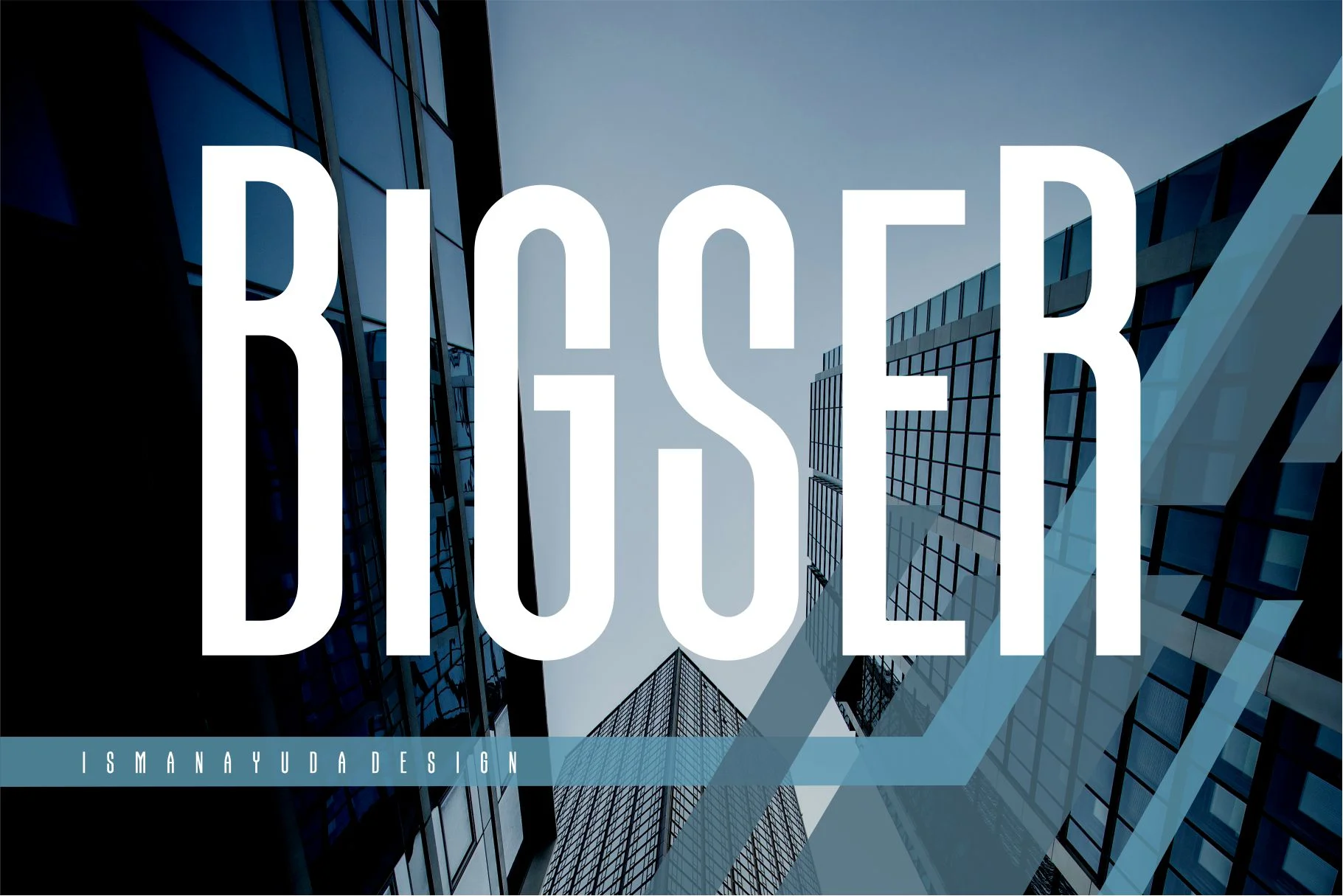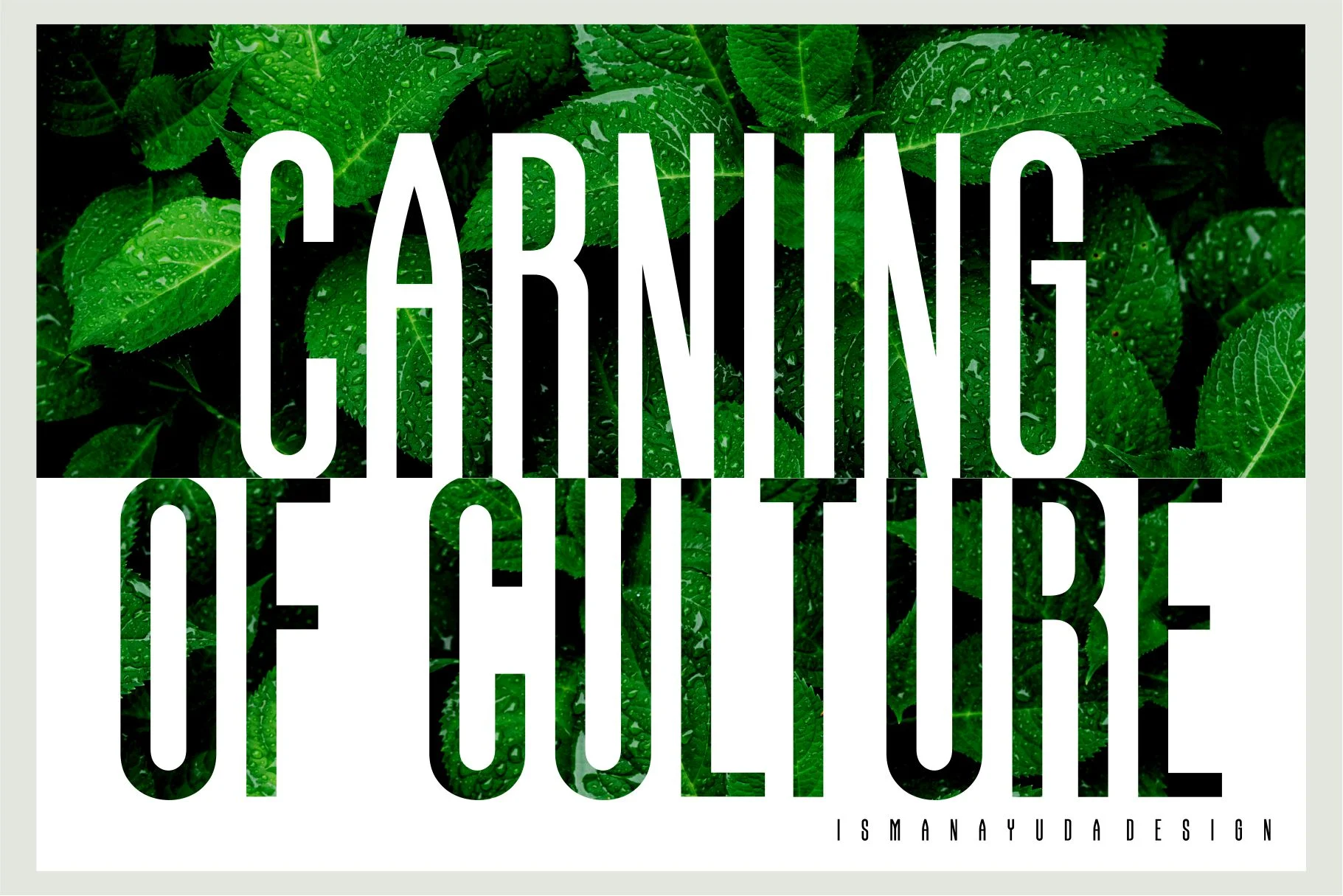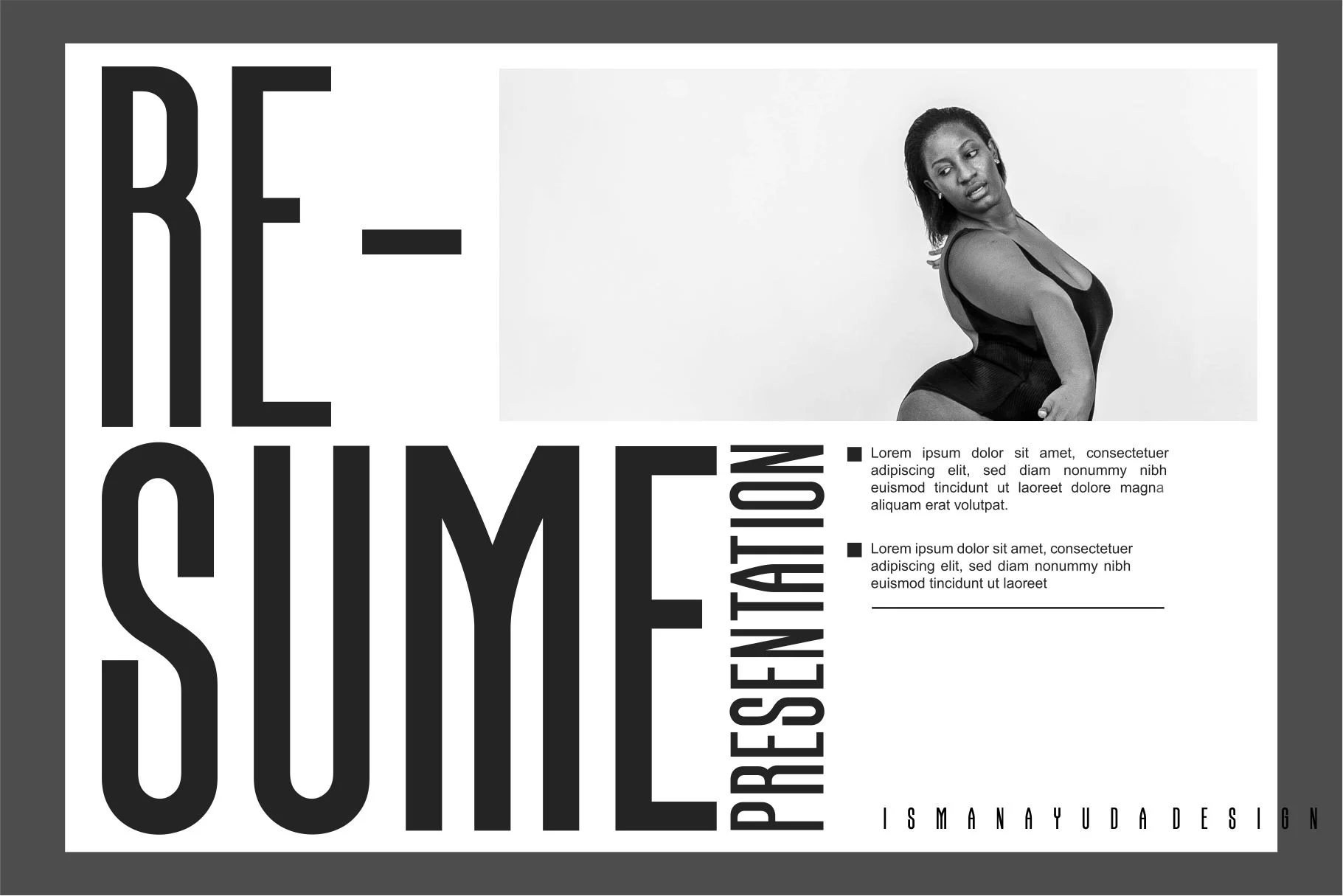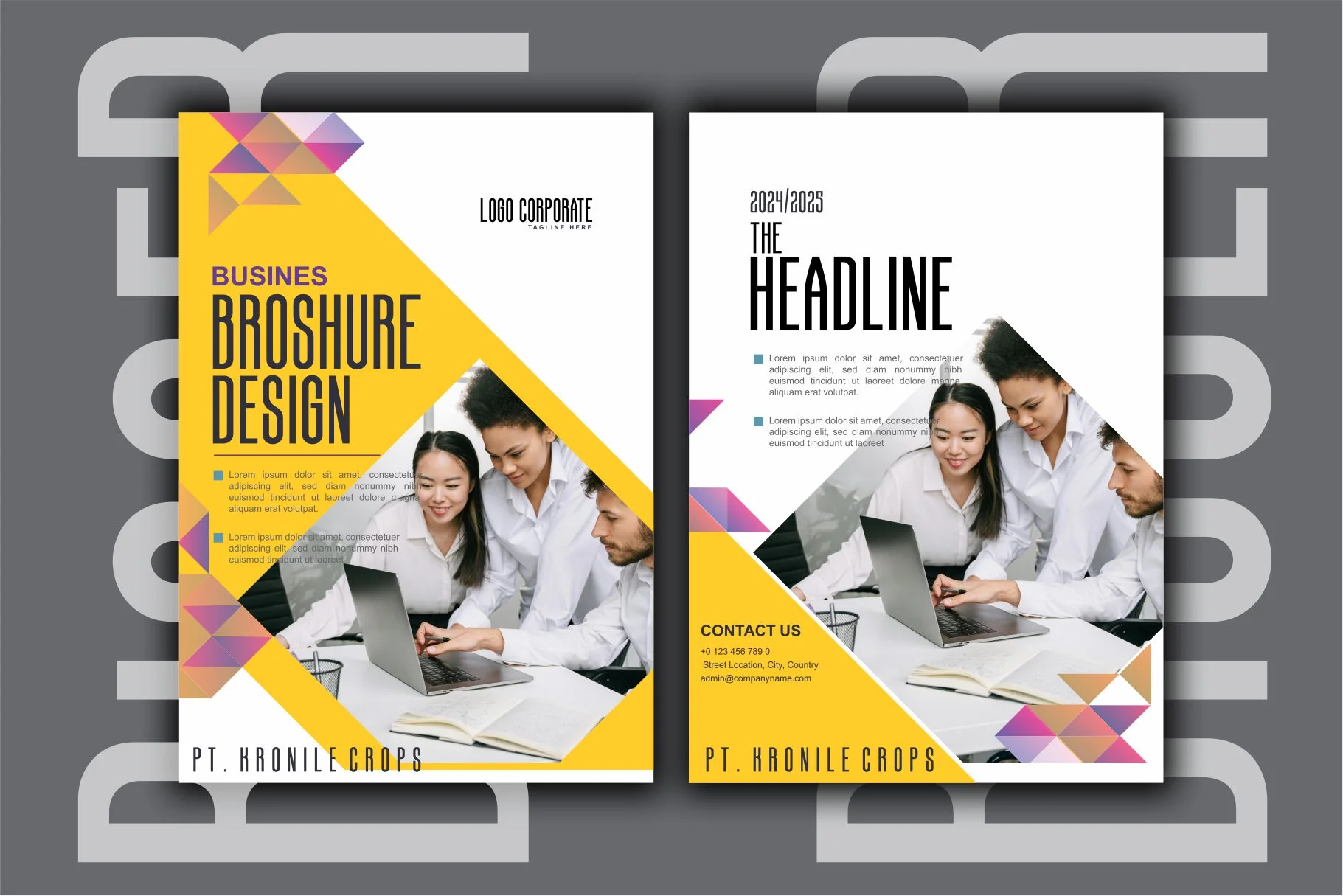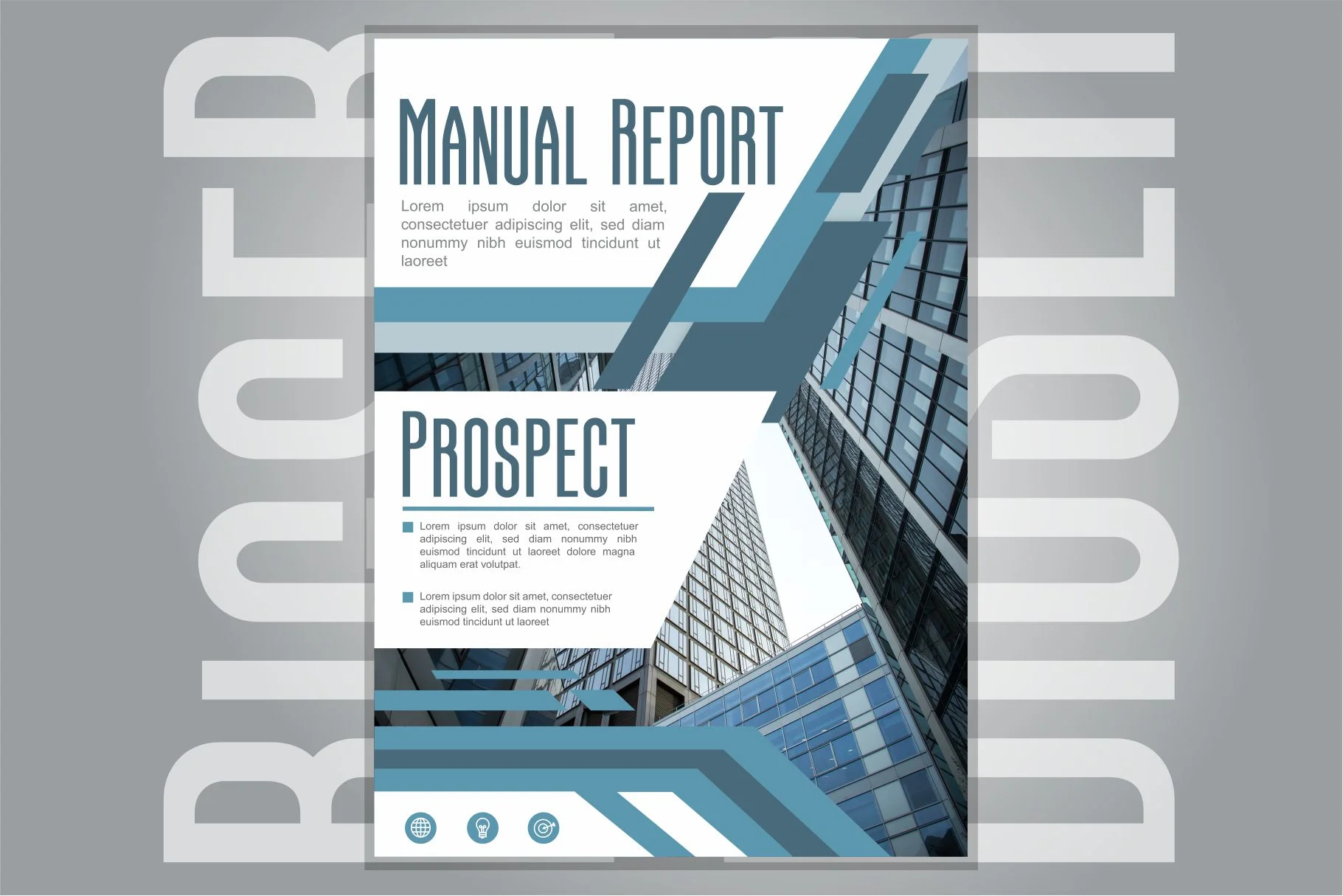
Bigser
Bigser is a versatile and modern sans-serif typeface characterized by its clean, tall, and condensed structure. Designed for impact and clarity, it features sleek vertical lines and a professional aesthetic that makes it highly readable in various sizes. Its minimalist and functional design makes it exceptionally suitable for company profiles, magazine headlines, branding, and sophisticated editorial layouts. The font balances a contemporary feel with a sturdy, grounded presence, offering a timeless look for digital and print media alike.